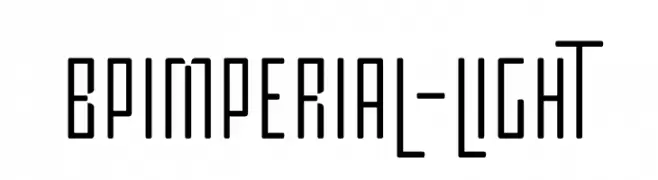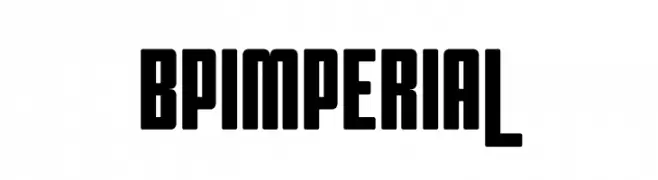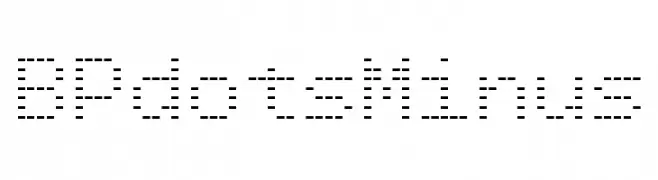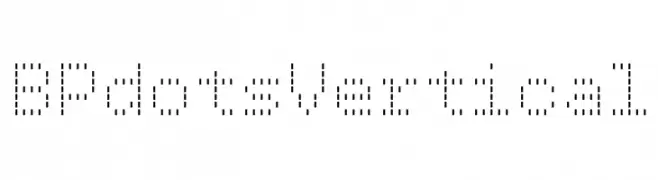
A modern, geometric font with a clean, structured design.
A bold, geometric font with a modern, industrial style.
A bold, monospaced stencil font with a modern industrial aesthetic.
A modern dotted font with a digital, tech-inspired aesthetic.
A pixelated, bold font with a retro digital aesthetic.
A dotted, digital-style font with a retro aesthetic.
A bold, dotted font with a modern, digital aesthetic.
A modern, dotted monospaced font with a geometric and minimalist design.
A dotted font with a digital, retro aesthetic.
A modern, dot-based font with a digital, pixelated style.